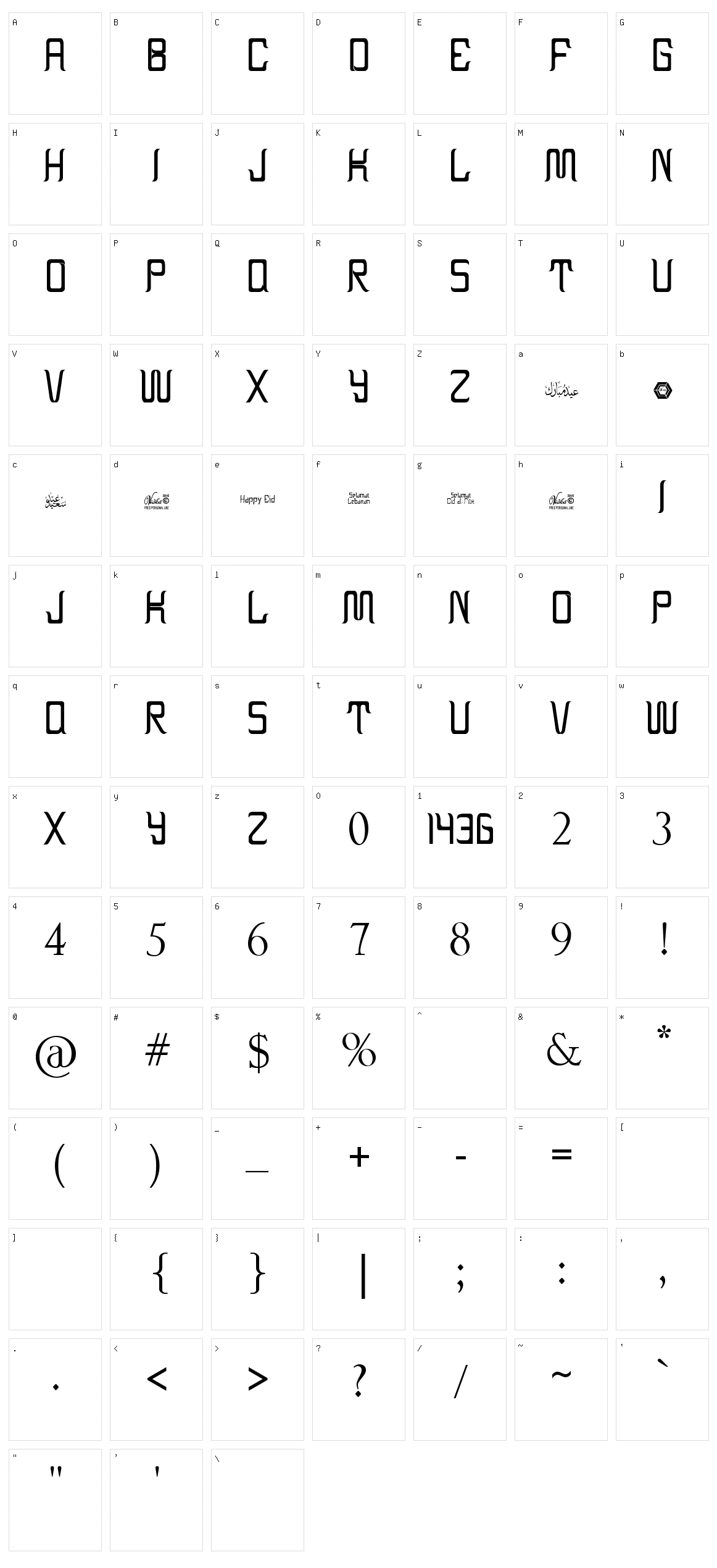
Eid al-Fitr 1
The free font Eid al-Fitr 1 is carefully designed by Vidkä© Foundry, showcasing a thoughtful balance of creativity and usability and falls under the Arabic font style. When you download the ZIP file, it contains only 661.58 KB of font files, making it lightweight and quick to download. Please review the license details below to understand permitted usage and distribution rights. If license information is not available, we recommend using this font for personal projects only or contacting the author directly for commercial usage permissions.